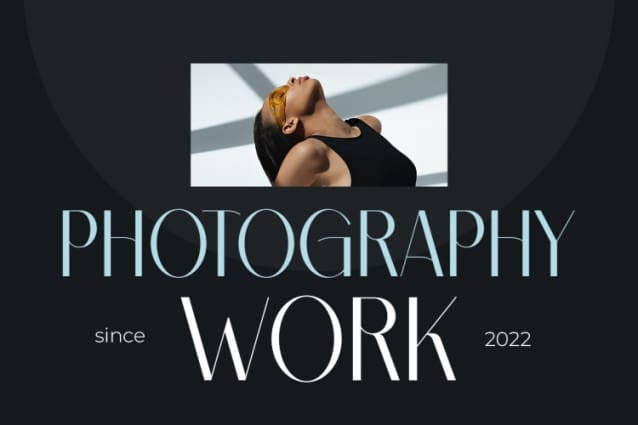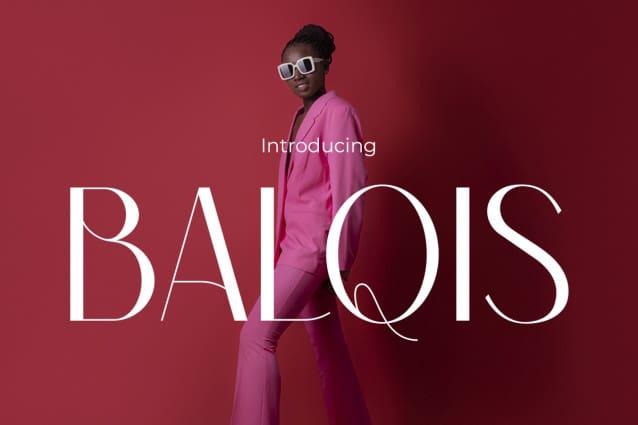
Balqis Font
Balqis Font – a font that seamlessly blends elegance and modern flair to elevate your design projects. Crafted with meticulous attention to detail, this font exudes a perfect balance between sophistication and trendiness. “Balqis Font” is a testament to unique charm and allure, ideal for those who appreciate exclusive typographic beauty.
With a diverse range of letter styles and variations, this font offers limitless flexibility to tailor the look of your text according to the requirements of your projects. Whether for logos, promotional materials, or expansive creative endeavors, “Balqis” suits universal adaptability. Designed to ensure maximum sharpness and clarity, each letter becomes an integral part of every design work. Perfect for projects seeking a touch of luxury, “Balqis” is your key to creating unforgettable designs. Don’t miss the chance to own this font and let every word shine with the exclusive typographic beauty of “Balqis”!